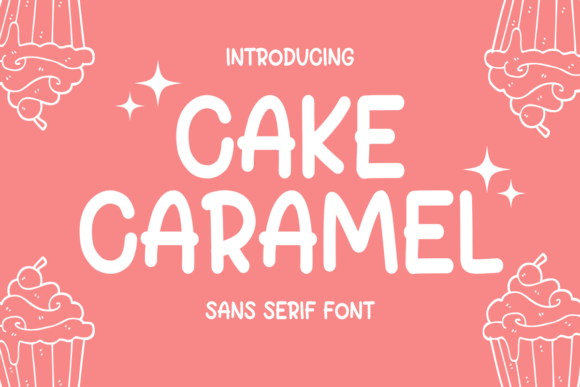
The Sweet Spot: Discovering the Cake Caramel Font
I’ll never forget the time I was working on a project for a client’s birthday party invitations. I had a clear vision of a fun, playful design, but I was struggling to find the perfect font to match. That’s when I stumbled upon the Cake Caramel font. It was like a breath of fresh air – a fun sans serif font that instantly elevated my design and made it feel more celebratory. In this article, I’ll share my experience with the Cake Caramel font, its features, and how to make the most of it in your designs.
So, what makes the Cake Caramel font special? Here are some things I love about it:
- ✨ Fun and playful vibe that’s perfect for creative projects
- ✅ Highly versatile and suitable for a wide range of designs, from memos to planners, and even scrapbooks
- 🌈 Great for seasonal and holiday-themed designs, such as Christmas, Halloween, and Thanksgiving
- 💻 Works well in digital and print formats
While the Cake Caramel font is amazing, there are a few quirks to keep in mind:
- 🤔 Some letters may appear a bit narrow or tall, which can affect readability in certain contexts
- ⚠️ Limited availability of special characters and glyphs, which might limit its use in certain designs
A Practical Guide: Using Cake Caramel in Your Designs
- Experiment with OpenType features, such as ligatures and stylistic alternates, to add visual interest to your text
- Take advantage of advanced typography features, such as glyphs and swashes, to add a personal touch to your design
The Story Behind Cake Caramel
The Cake Caramel font was designed with creativity and playfulness in mind. Its creator aimed to craft a font that would inspire designers and hobbyists to experiment with new ideas and push the boundaries of typography. The result is a font that’s both fun and versatile, perfect for a wide range of projects.
With its fun and playful vibe, the Cake Caramel font is sure to become a staple in your design library. Whether you’re a seasoned designer or a creative hobbyist, this font is perfect for adding a touch of personality to your projects. So go ahead, get creative, and make something amazing with Cake Caramel!